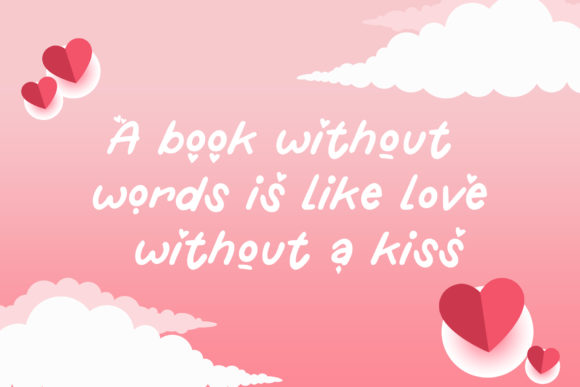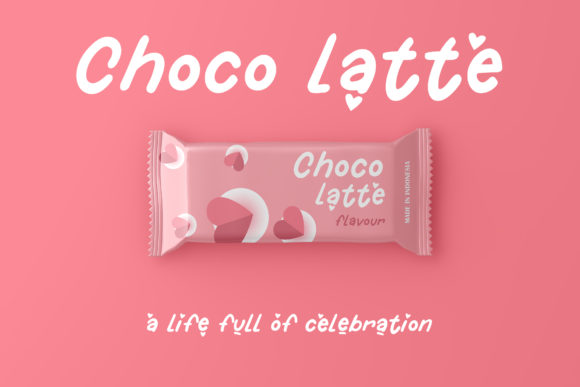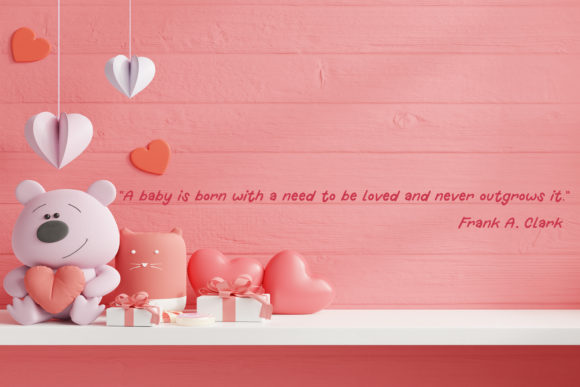
Introduction to My Simple Valentine Font
My Simple Valentine is a sweet and friendly handwritten font.
Key Features of My Simple Valentine Font
Why Choose My Simple Valentine Font?
My Simple Valentine Font offers exceptional quality and versatility, making it a valuable addition to your design toolkit. Whether you’re creating for personal projects or commercial use, My Simple Valentine Font delivers professional results.